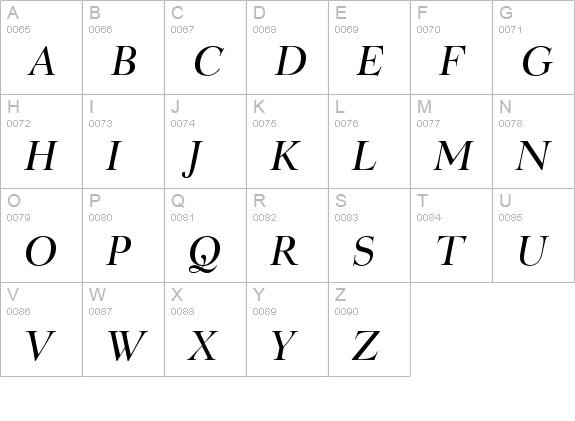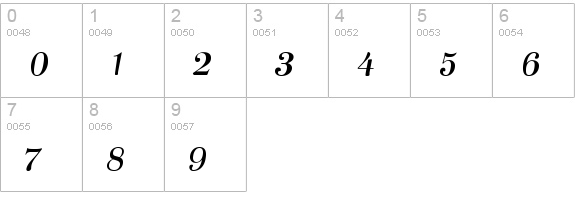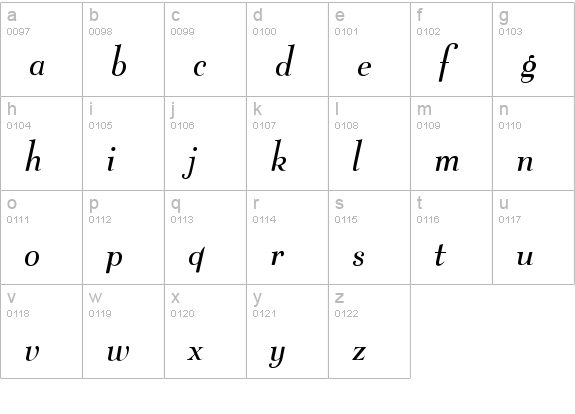
Belucian-DemiBoldItalic Font Details
Introducing Belucian-DemiBoldItalic font – a striking and stylish typeface designed to make a bold statement. Its elegant curves and sophisticated slant add a touch of flair to any project, making it perfect for headings, titles, and other eye-catching designs. The combination of a demi-bold weight and italic style creates a captivating visual impact that commands attention. What sets Belucian-DemiBoldItalic font apart is not only its unique design but also its accessibility - it is available for free download at FontsMarket.com. This means that you can easily incorporate this distinctive font into your projects without any cost, making it a valuable addition to your design toolkit. Whether you're working on branding materials, posters, invitations, or any other creative project, Belucian-DemiBoldItalic font is sure to elevate your design with its modern and sophisticated aesthetic. Download Belucian-DemiBoldItalic font today and unleash its potential to add a touch of elegance and style to your designs.